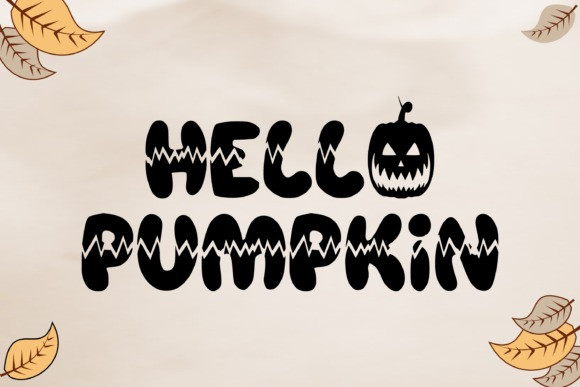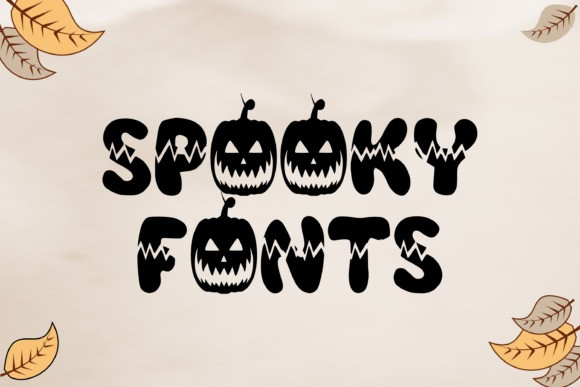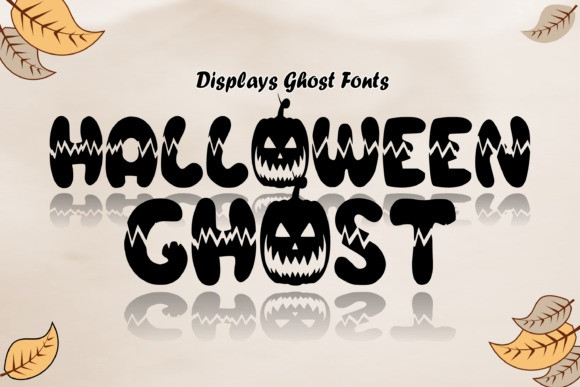
Halloween Ghost Font
Halloween Ghost Font is a spooky, stylish, and cheerful retro display font, perfect for crafting, branding, and designing your Halloween projects. Use it for greeting cards, retro designs, book covers, stationery comics, magazines, news editorials, procreate, book covers, t-shirts, mugs, ads, and more.